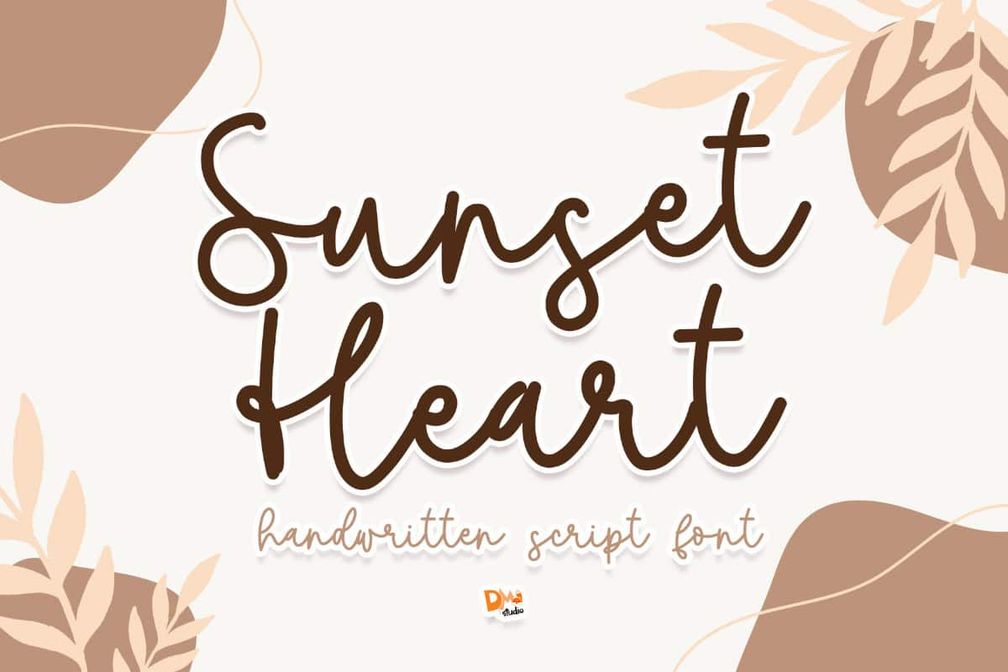
Sunset Heart Font
Sunset Heart Font is a stylish and versatile typeface that brings warmth and elegance to your designs. With its graceful letterforms and romantic charm, this font is perfect for a wide range of creative projects, including wedding invitations, branding, posters, and more. Infuse your designs with the beauty and sophistication of Sunset Heart Font.
1. Elegant and Romantic Design: Sunset Heart Font features graceful letterforms and a romantic aesthetic that adds sophistication to your text.
2. Versatility in Application: Ideal for various design projects, from elegant wedding invitations to upscale branding, bringing a touch of warmth and elegance to your creations.
4. Uppercase and Lowercase Letters: Both uppercase and lowercase letters included for creative flexibility.
5. Punctuation and Symbols: Comprehensive set of punctuation marks, numerals, and symbols for consistent and versatile use.